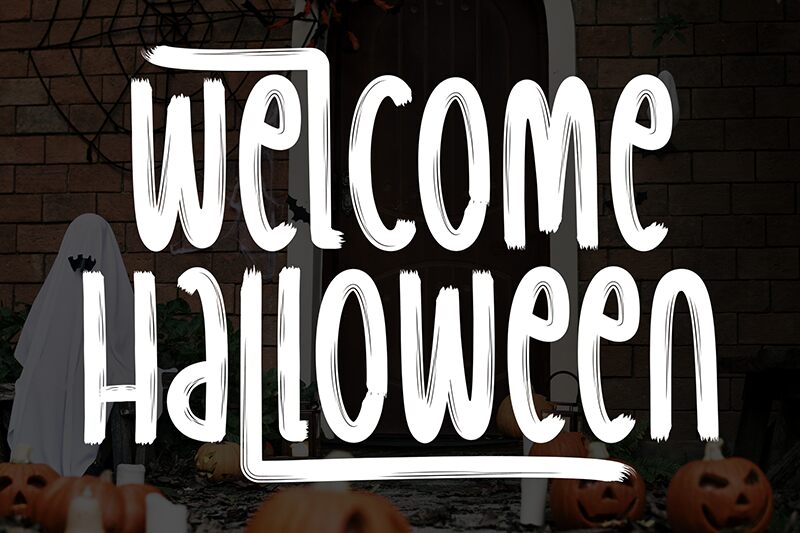
Welcome Halloween
Welcome Halloween font by Scratchones is a condensed handwritten font with a spooky, irregular texture. The decorative typeface features gothic influences in the form of an eerie atmosphere perfectly suitable for the occasion. Irregular letter edges set this theme-specific font apart from other happy or cheerful styles.
The different moods in this free scripted resource make it perfect for use in invitations and flyers, business cards, posters, product labels, magazines, and website headlines. Use it extensively for coffee packaging or merchandise related to the Halloween holiday; think costumes, decorations and more!